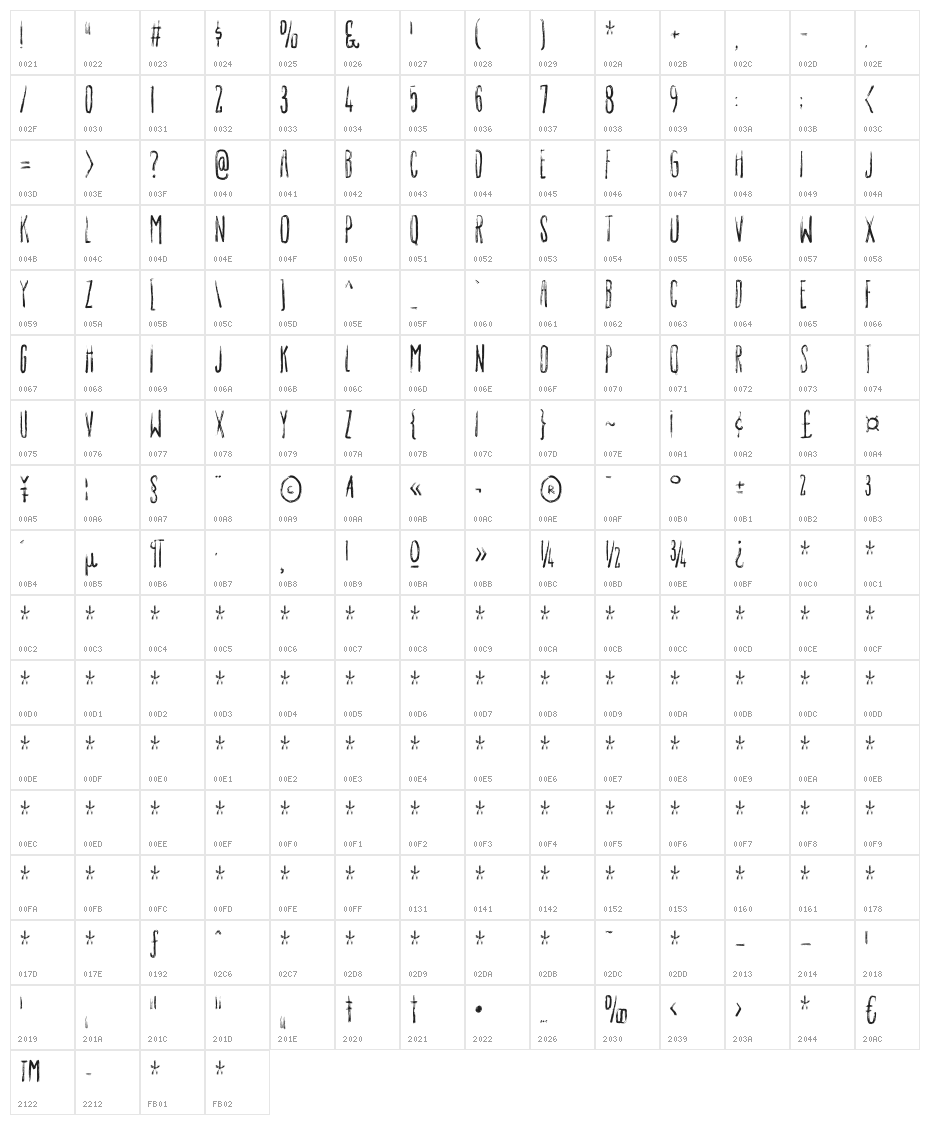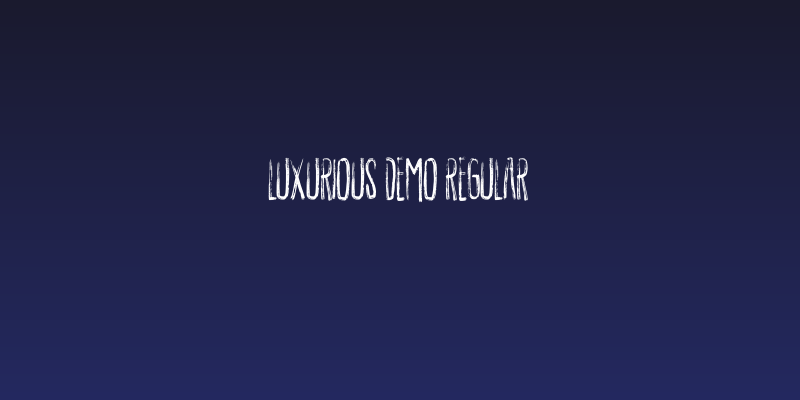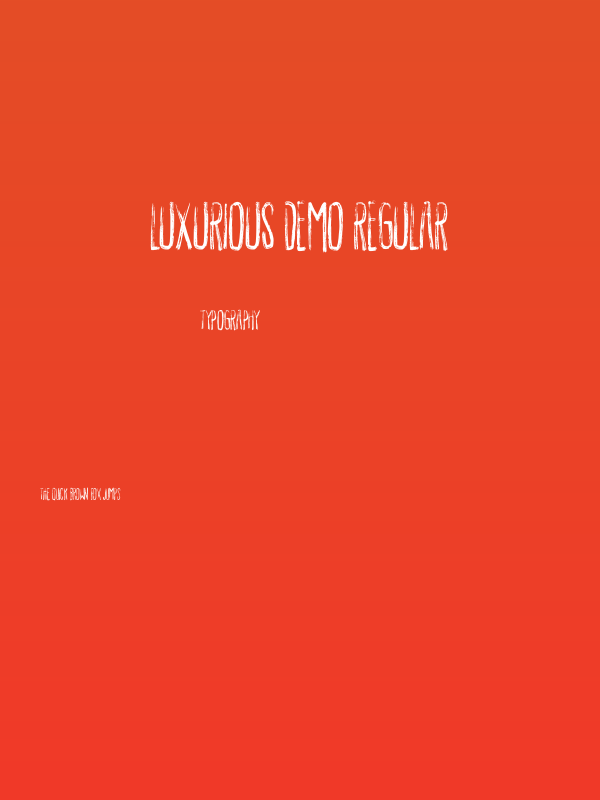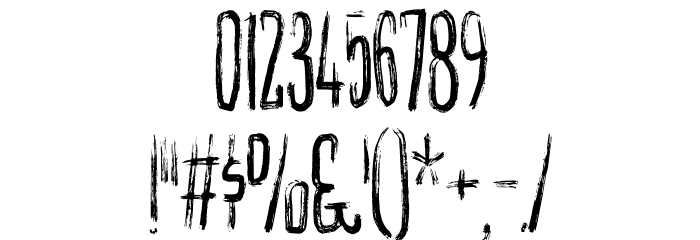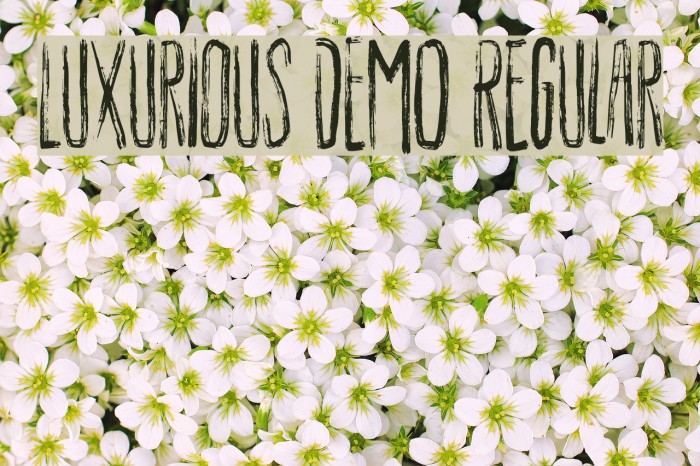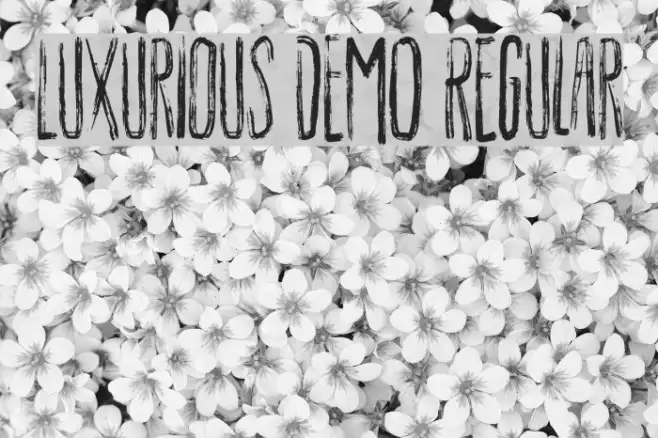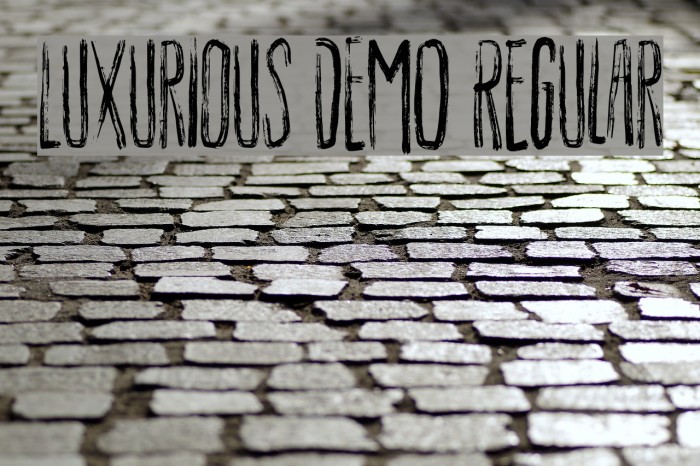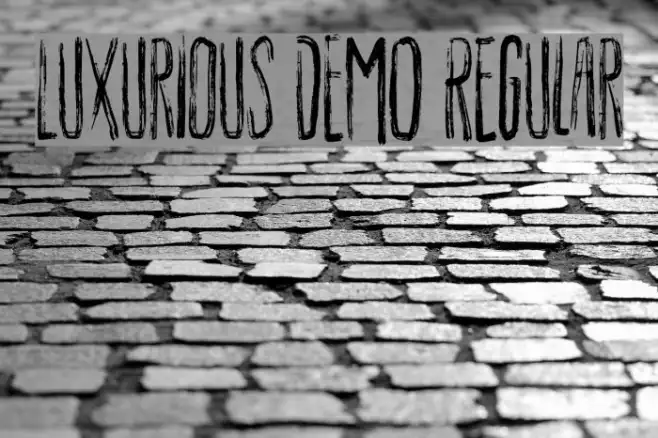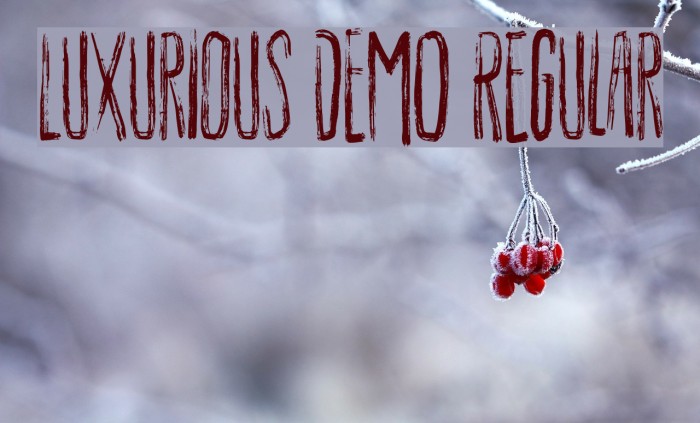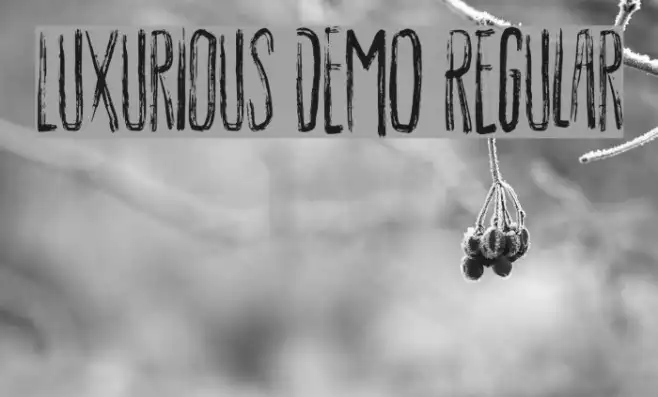
Luxurious DEMO Regular Font
Luxurious DEMO Regular Description
This font exhibits a distressed, textured appearance with a hand-drawn quality, giving it a unique and artistic flair. The characters are elongated and slightly irregular, contributing to a dynamic and edgy look. The strokes are uneven, with a rough, brush-like texture that adds depth and character. This style is reminiscent of grunge or urban street art, making it stand out with its bold and expressive design. The uppercase and lowercase letters maintain a consistent style, while the numerals and special characters complement the overall aesthetic. The font's distinctive appearance makes it suitable for creative and unconventional projects.
| Overall Style | Grunge, Artistic |
| Proposed Projects | Ideal for album covers, posters, streetwear branding, and artistic projects that require a bold, expressive touch. |